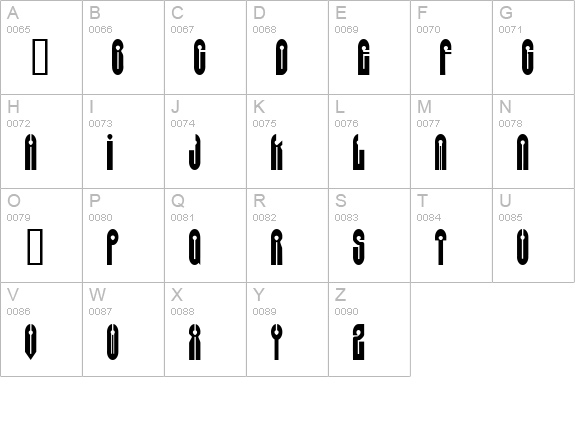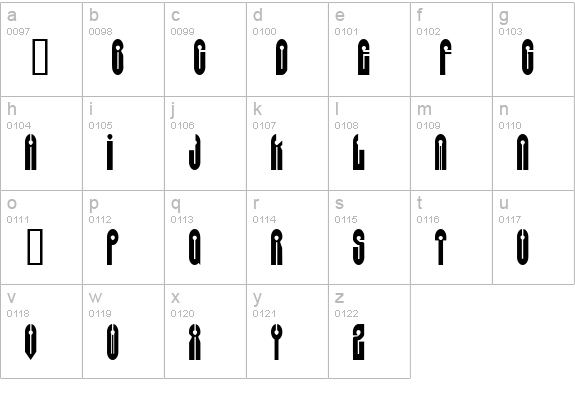
Grey(Alien)SW Font Details
Grey(Alien)SW is a futuristic and edgy font that captures the essence of extraterrestrial mystique. With its sleek lines and unique design, this font is perfect for adding a touch of otherworldly sophistication to your projects. Whether you're working on a sci-fi poster, a technology website, or a space-themed invitation, Grey(Alien)SW is sure to make a bold statement. Best of all, Grey(Alien)SW is available for free download at FontsMarket.com. Simply visit the website and add this stunning font to your collection without any cost. Embrace the unknown with Grey(Alien)SW and take your designs to new heights.